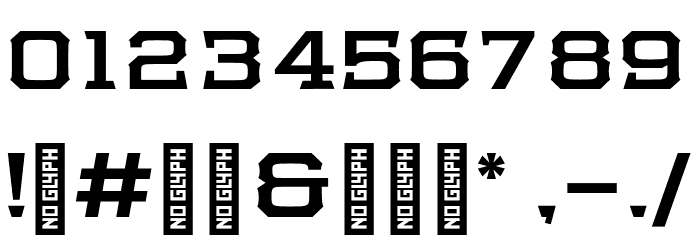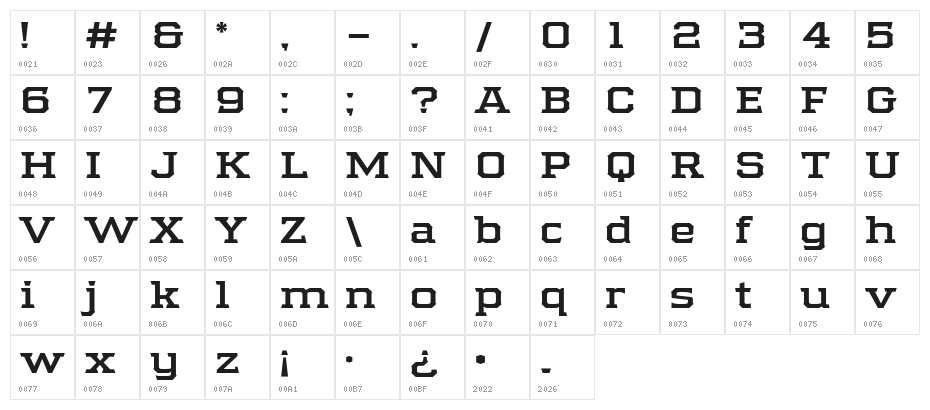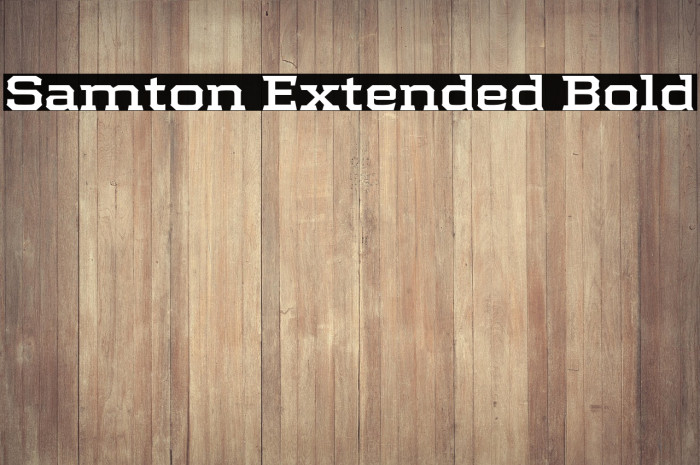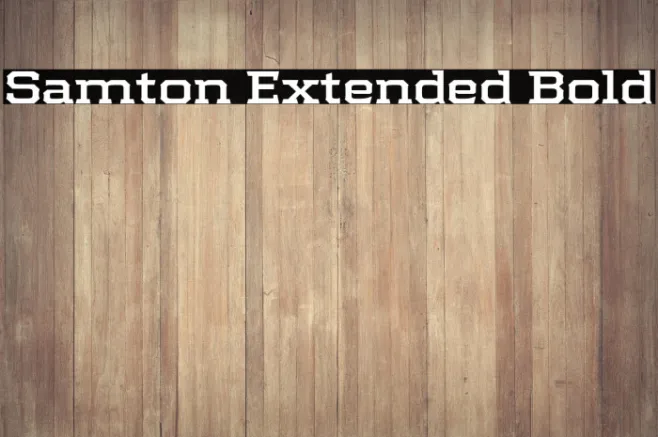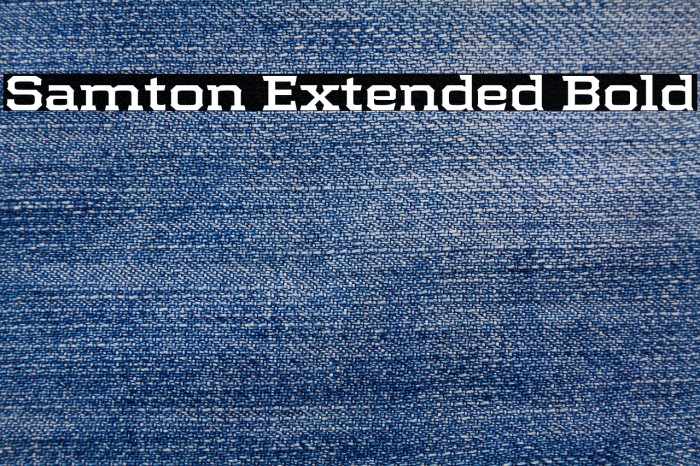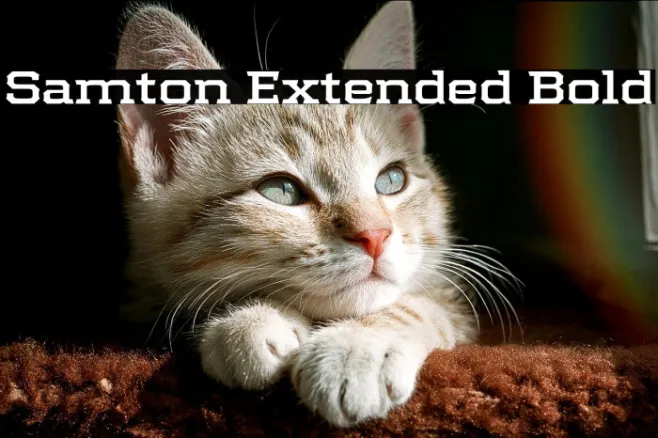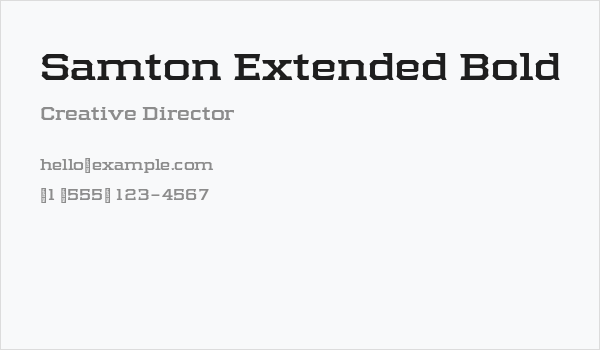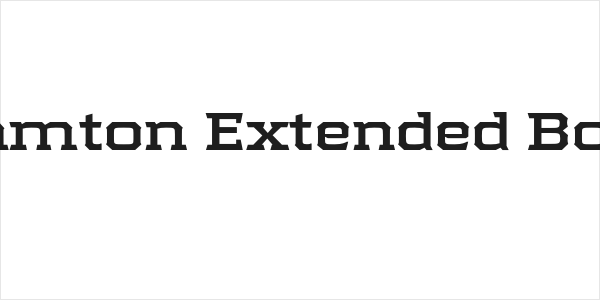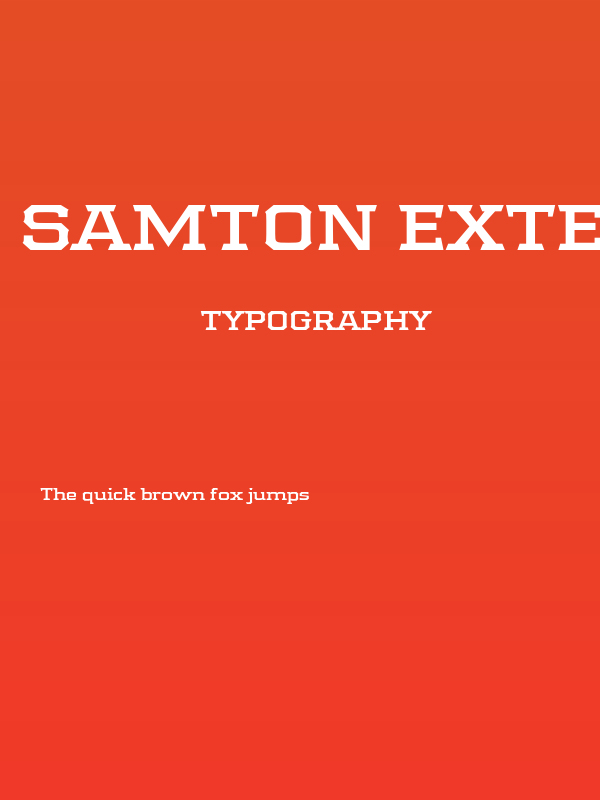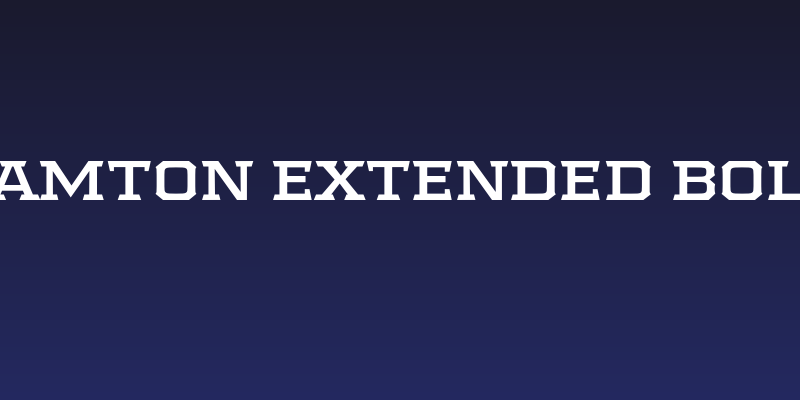
This font features a bold and extended style with a strong, geometric structure. The uppercase and lowercase letters are consistent in width, giving a uniform appearance. The characters have a modern, industrial feel, with sharp edges and clean lines. The numerals are equally bold, maintaining the same width and style as the letters. The font lacks certain special characters, indicating a focus on alphanumeric use. Its design is suitable for making a strong visual impact, ideal for headlines or titles where clarity and presence are essential.
| Proposed Projects | Ideal for branding, signage, posters, and headlines where a strong, modern look is desired. |